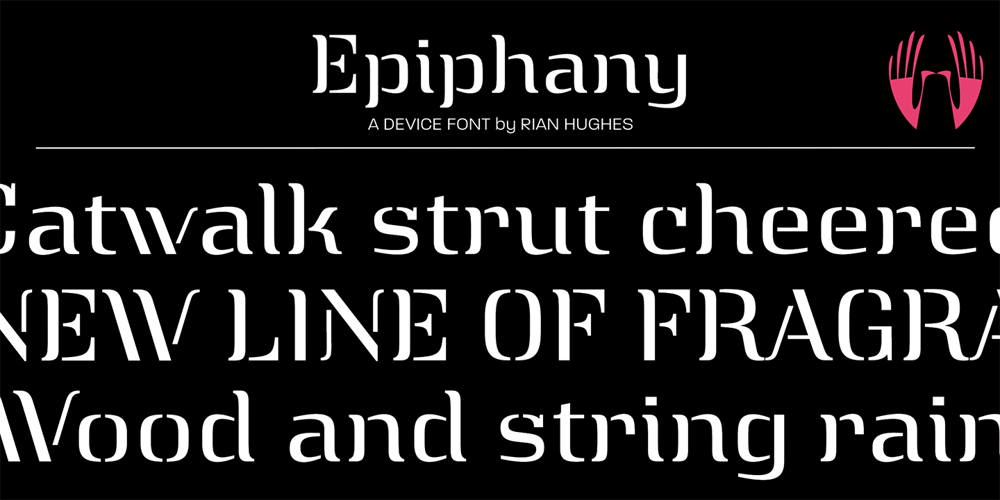
Epiphany Font Family was designed by Rian Hughes and published by Device. Epiphany contains 1 styles and family package options. Epiphany is an elegant serif with wide proportions and an unusual stencil effect. This communicates honesty with an understated refinement. Suitable for headlines and shorter paragraphs of text. The design uses several repeated forms that give it a forward-moving rhythm, for example the small ‘flicks’ on the lower-case letters and the tails on g and y.